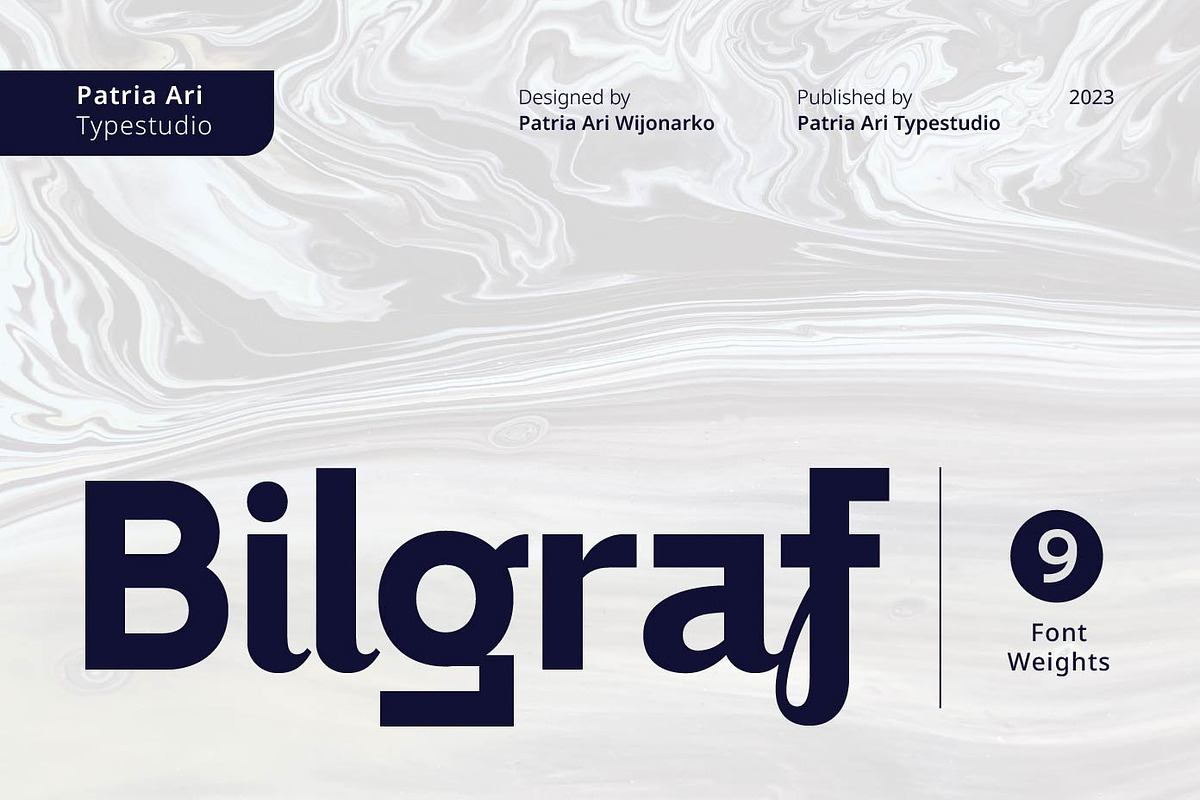
Bilgraf Cursive Craft Sans Free Download
Bilgraf Cursive Craft Sans Free Download is a creative and stylish typeface that blends casual sans-serif structure with the fluid elegance of cursive strokes. Please note, you are required to purchase this font for commercial use. It is available for free download for testing and personal projects only.
With its handcrafted charm and modern readability, Bilgraf is perfect for branding, handmade product labels, craft packaging, social media graphics, and blog headers. It combines a relaxed feel with professional design—making it versatile for both playful and polished projects.